Joshua Shapiro is a Los Angeles-based watchmaker specialising in guilloche dials. I was commissioned to create a set of custom numerals for an initial bespoke piece. They subsequently appeared on the limited edition Infinity Meteorite P.01 series, making these numerals the first serially-used Arabic numerals on J.N.Shapiro watches.
The brief as described by the commissioner was to create a unique set of playful and organic Arabic numerals that were heavier than the Roman numerals typically found on the Infinity series. Joshua enlists the skills of Artur Akmaev to engrave the numerals into the chapter ring which informed some of the design elements, moving them towards hand-engraving rather than printing or laser-etching.
The Infinity series follows a traditional structure in terms of its dial design with similarities being found in the work of George Daniels and Breguet. My goal was to find areas to insert playfulness into a more traditional (horological) typographic structure. I also wanted to balance the numerals between the delicate guilloche patterns and the more robust features found in the hands and case design.
One of the main design features of the set are the curved leaf-shape terminals found on the 2, 3, 5, 6, and 9. Typically ball or teardrop terminals are found in horological typography so these leaf-shaped terminals helped retain some originality in the design. I also added concave curves into the serifed stroke-endings to add to the organic feel. As the numerals would be arranged radially on the chapter ring, the concave curves aided in them not clashing with a curved baseline. The curved baseline also meant that special attention was necessary for two-digit numerals like 10, 11, and 12.
Minor angle changes were made for the digits in 10 and 11, splaying them slightly outwards. The 12 numeral uses slightly altered forms for the 1 and 2 digits.
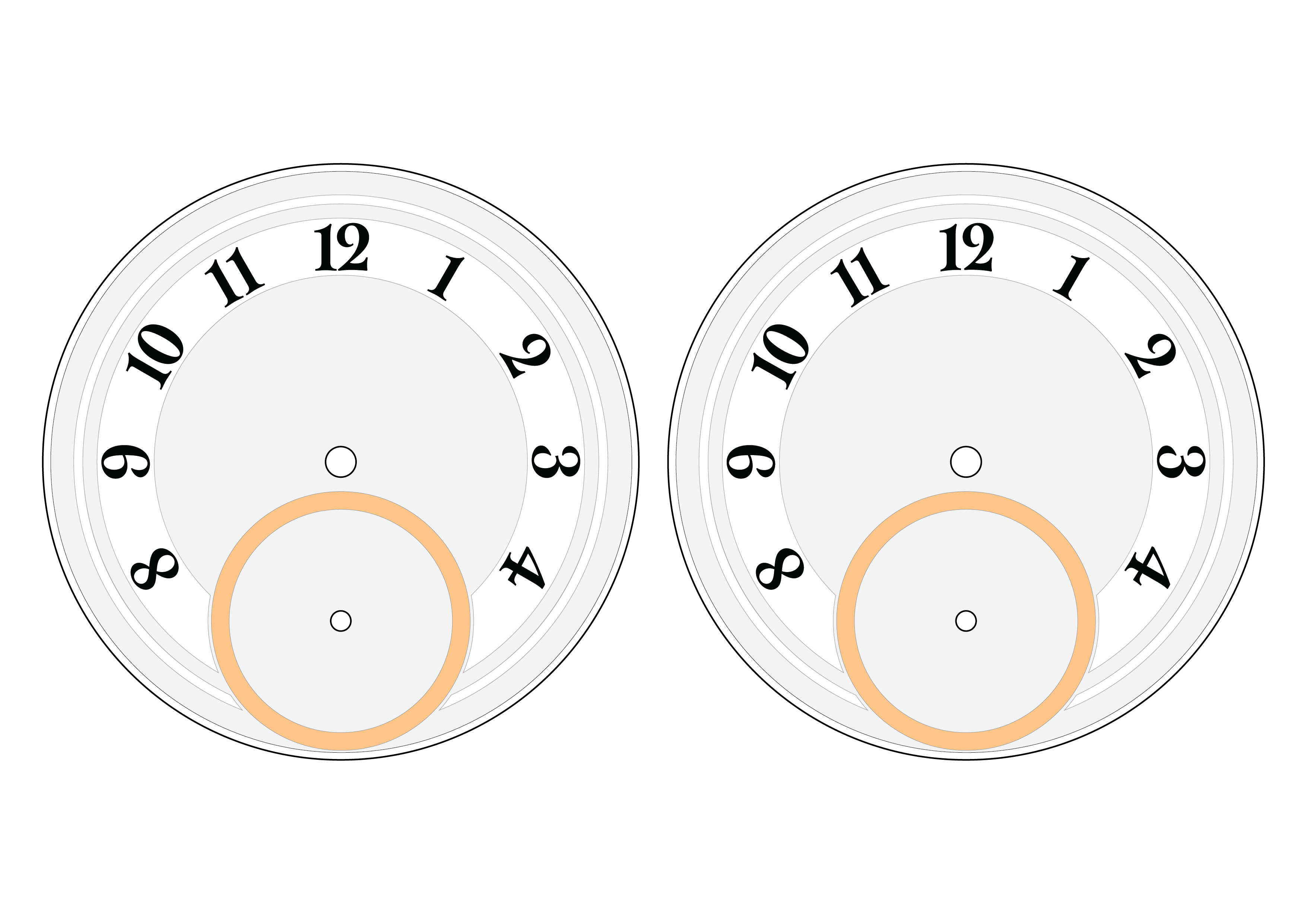
Left: Unaltered digits making the 10, 11, and 12 numerals.
Right: The ‘corrected’ numerals as they appear on the dial.
The appearance of the numerals changes drastically with their presentation. The P.01 series uses lacquer-filled numerals while the original commissioner’s bespoke watch (below) features the numerals in gold-plating.